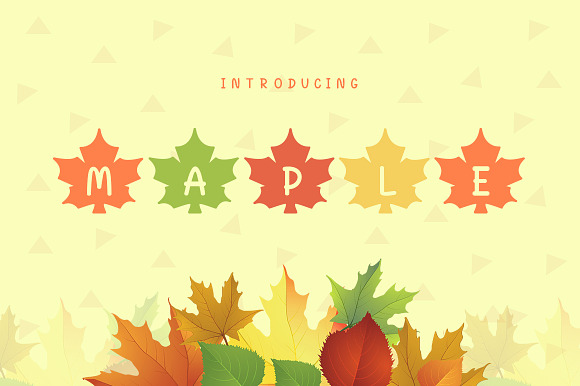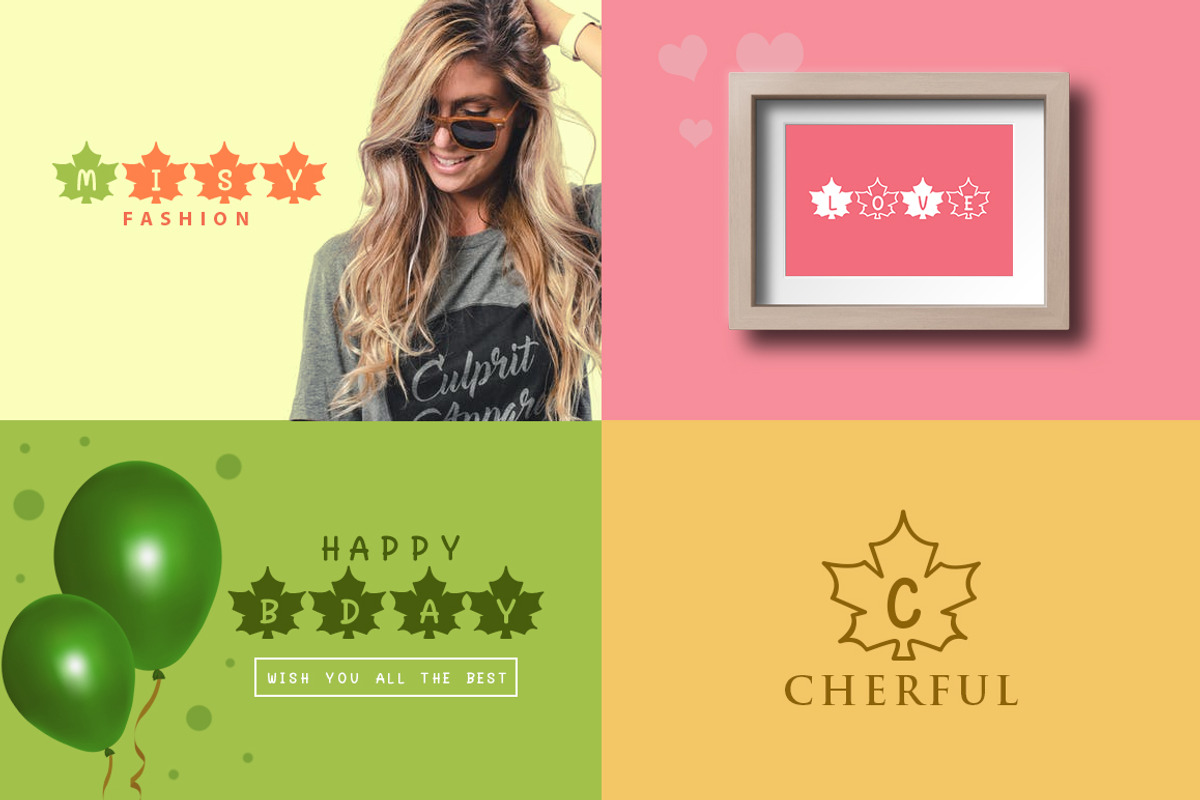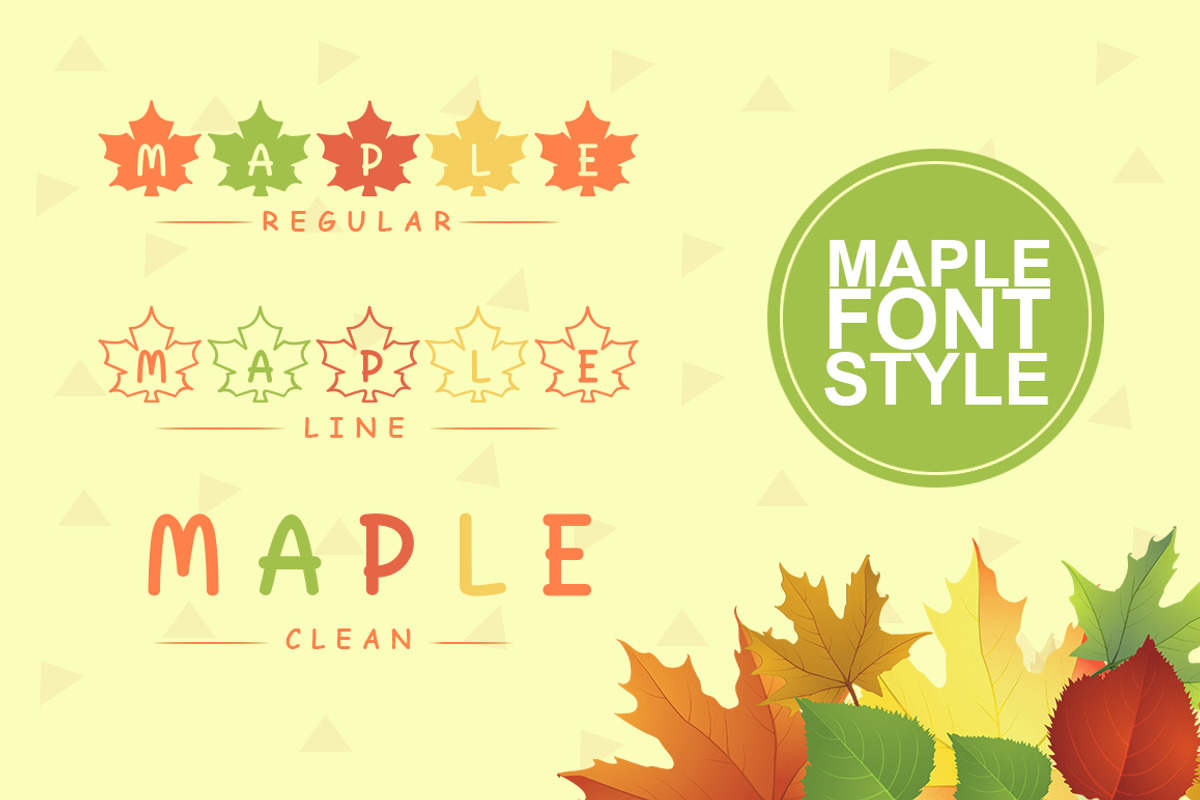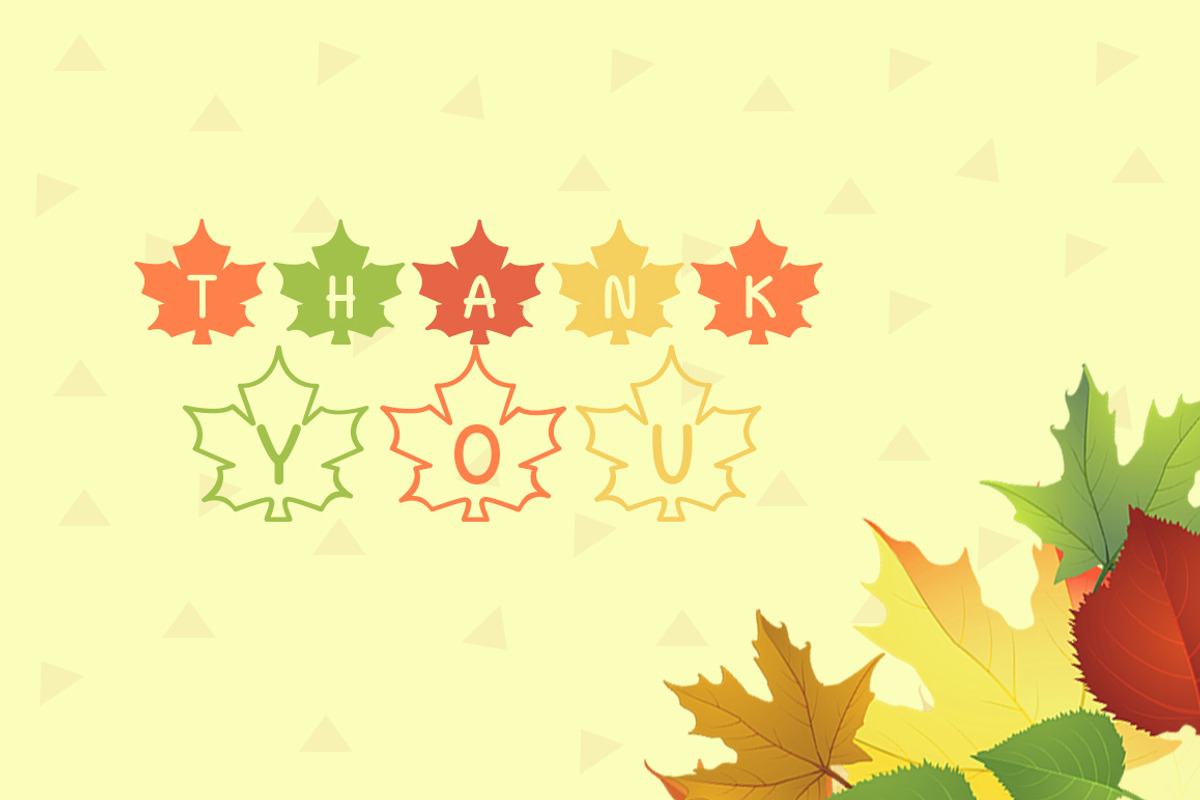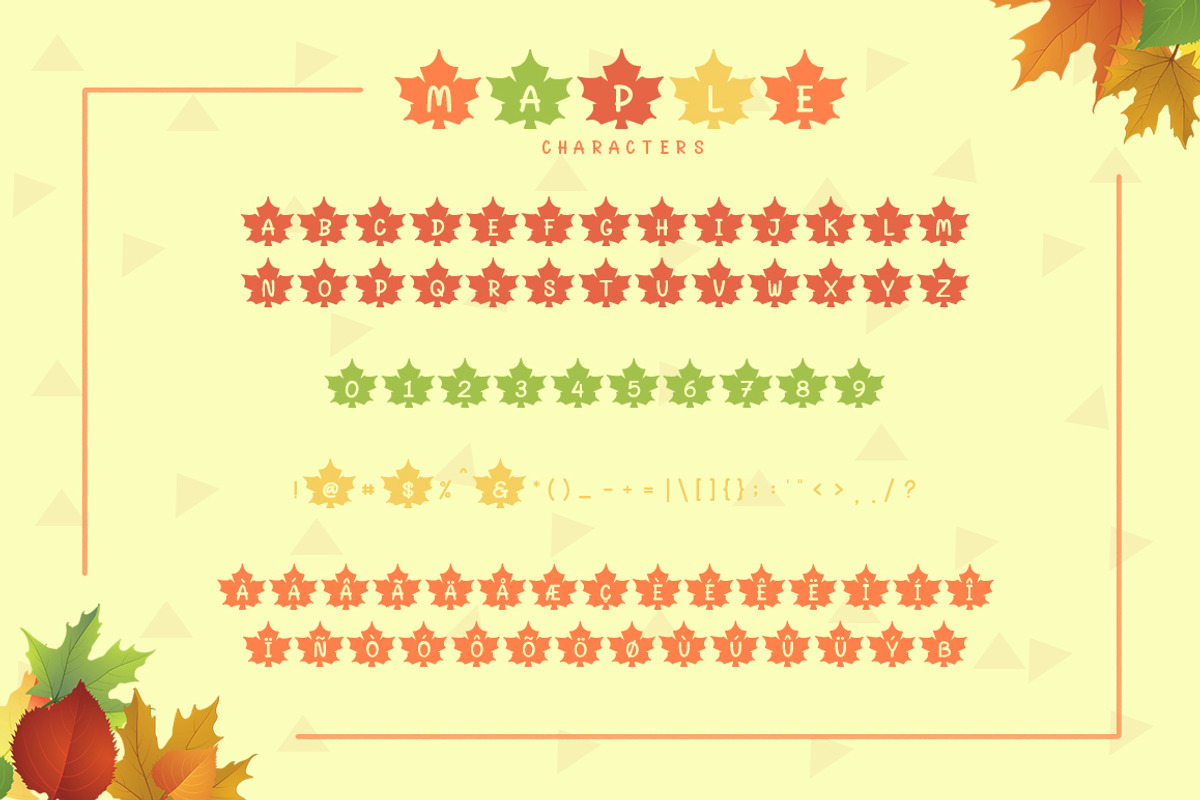
Maple Font
Maple Font is a dislay fun & unique typeface. Maple Font suitable for logo, branding, greeting card, poster and any design that you create.
Maple Font by khurasan fits naturally into Branding, posters, packaging, typography.